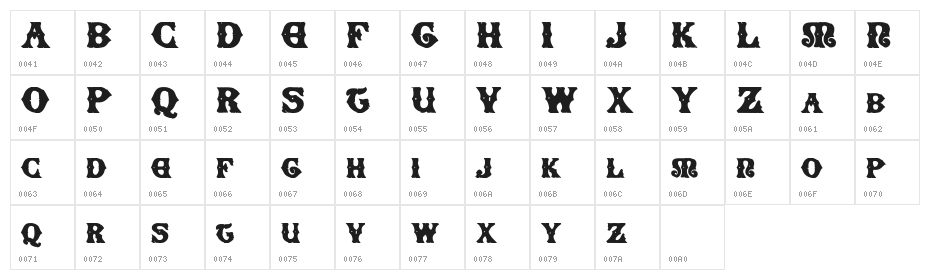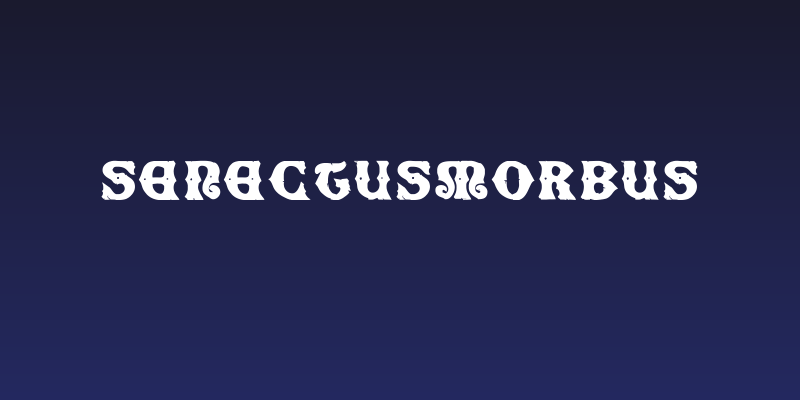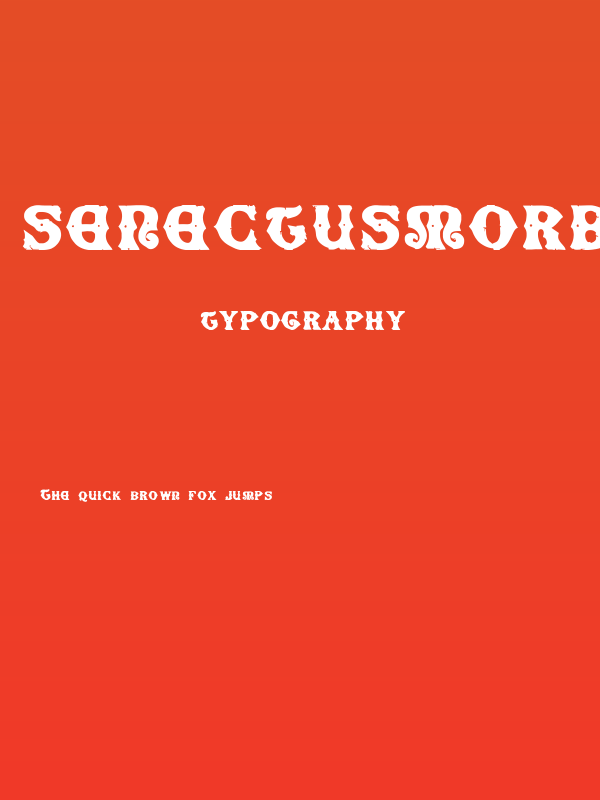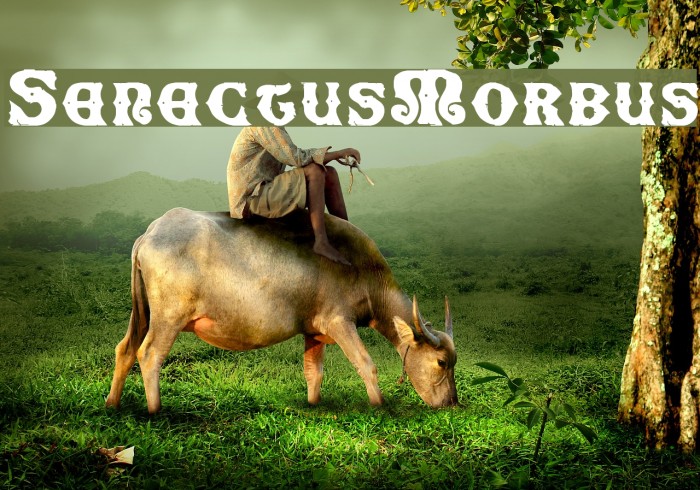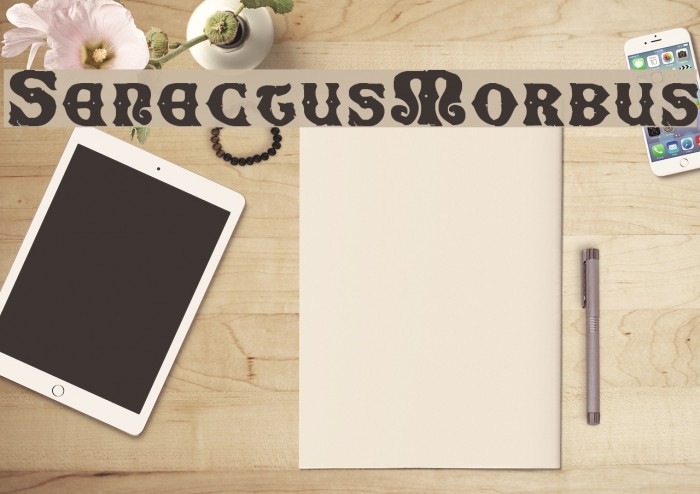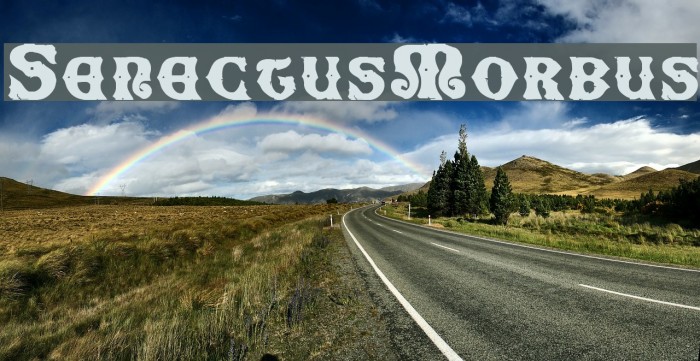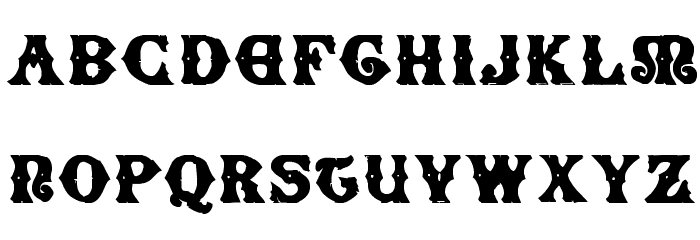
SenectusMorbus Font
SenectusMorbus Description
This font features a bold and decorative style with intricate details and flourishes that give it a unique and artistic appearance. The characters are heavily stylized, with each letter incorporating elaborate curves and embellishments, creating a sense of movement and flair. The overall design is reminiscent of vintage or retro aesthetics, making it stand out as a display font. The boldness of the strokes ensures high visibility, while the ornate details add a touch of elegance and sophistication. This font is ideal for projects that require a strong visual impact and a touch of artistic expression.
| Proposed Projects | Ideal for posters, logos, branding, and any project needing a strong visual impact. |